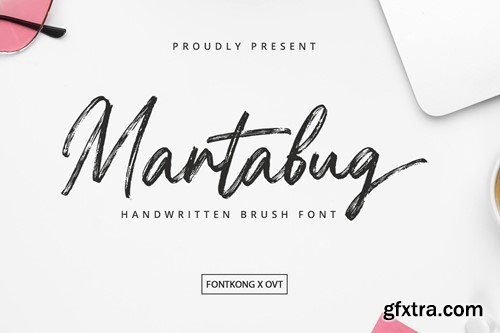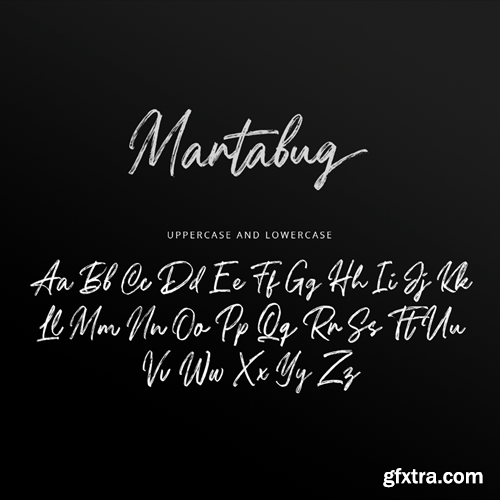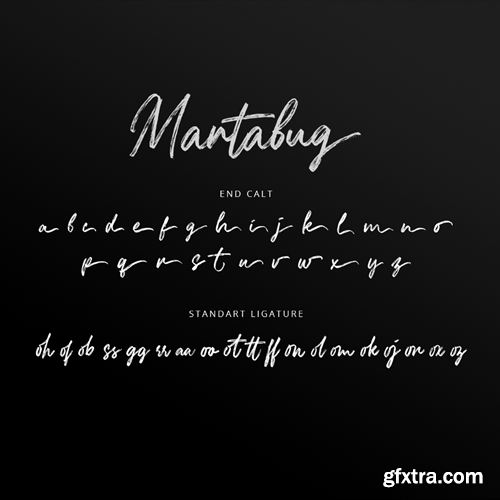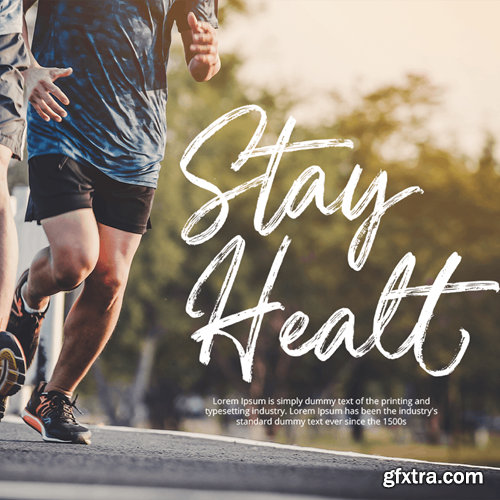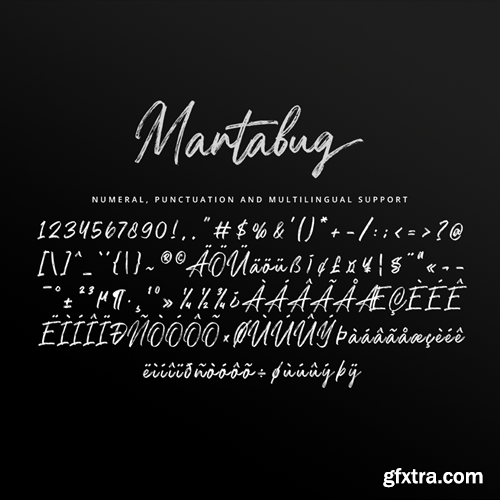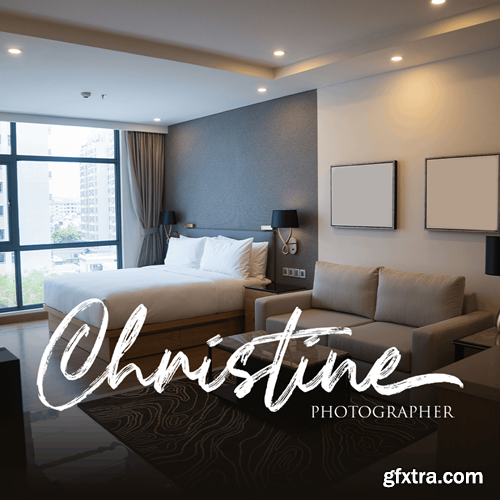
Martabug - Handwritten Brush Font Introducing "Martabug," a handwritten brush font that infuses your projects with bold and dynamic energy. Perfect for designers, illustrators, and creatives who want to add a handcrafted and expressive touch to their work, Martabug combines the raw beauty of brush lettering with contemporary design flair. You will receive the font files in TTF, OTF, and WOFF formats Ideal for posters, logos, social media graphics, and branding materials, Martabug’s bold strokes and textured characters provide a vibrant and artistic aesthetic. Each character is meticulously crafted to capture the natural variations and spontaneity of brush handwriting, ensuring your designs stand out with a unique and creative touch. The "Martabug" font includes a full set of uppercase and lowercase letters, numbers, punctuation marks, and a variety of ligatures and stylistic alternates. This versatility offers extensive creative freedom, making it perfect for a wide range of design applications, from striking advertisements to engaging social media posts. Bring bold expression and creativity to your designs with Martabug, a handwritten brush font that embodies the spirit of artistic freedom.